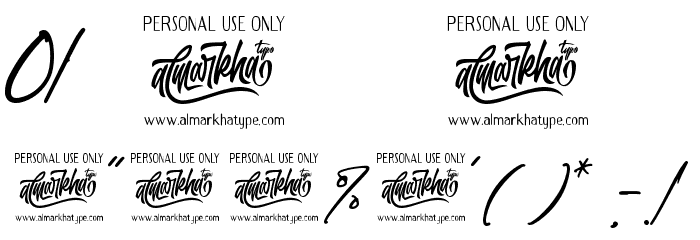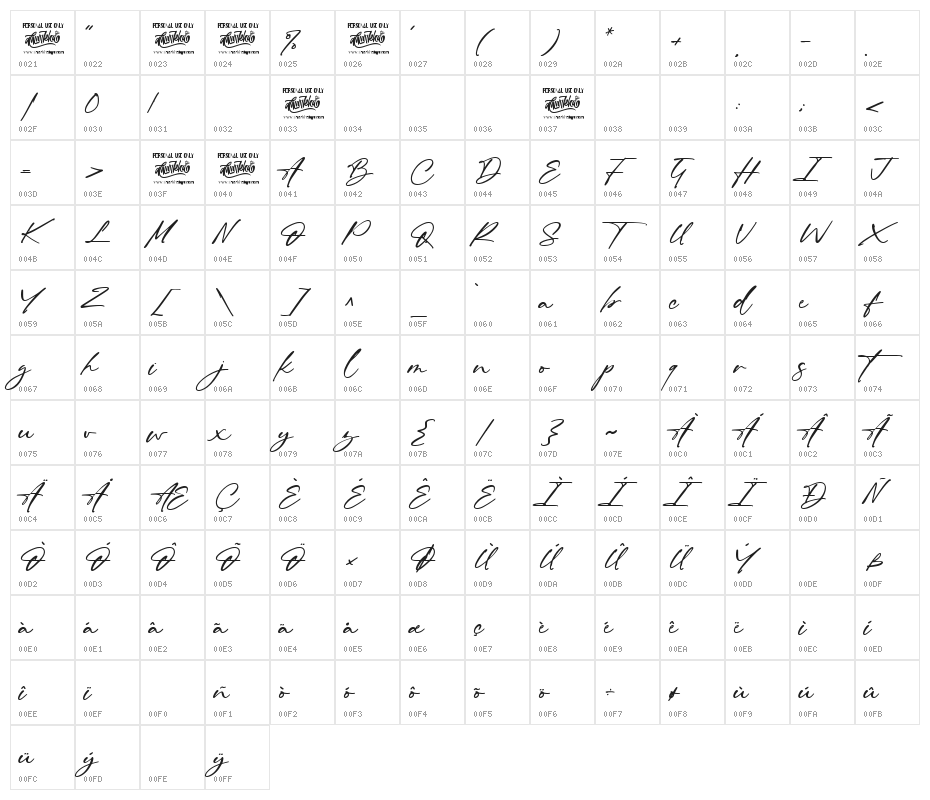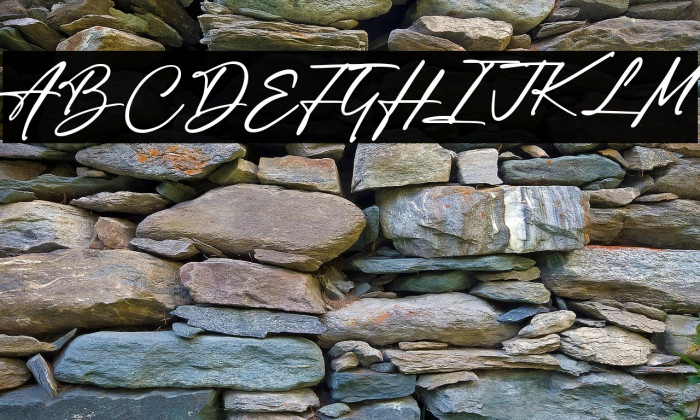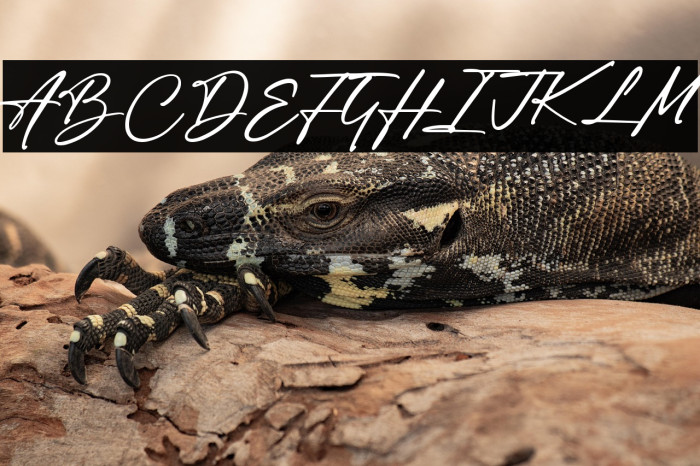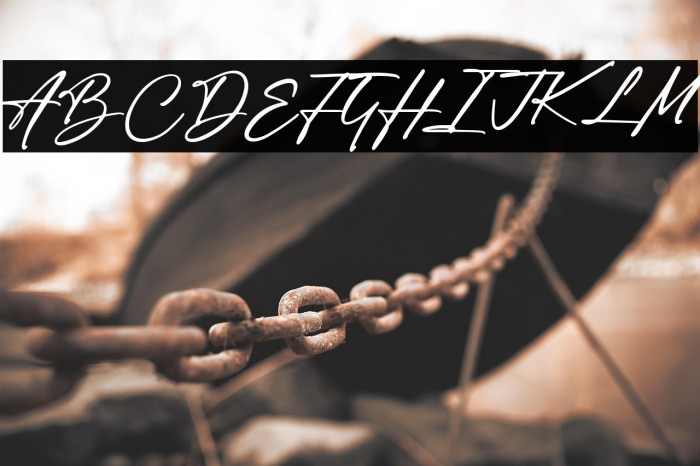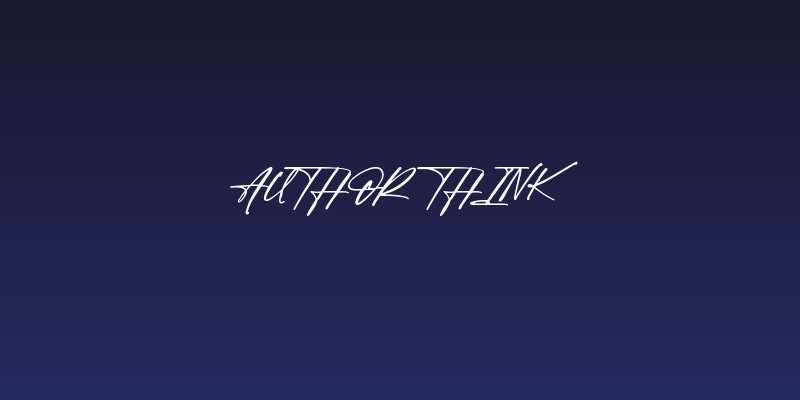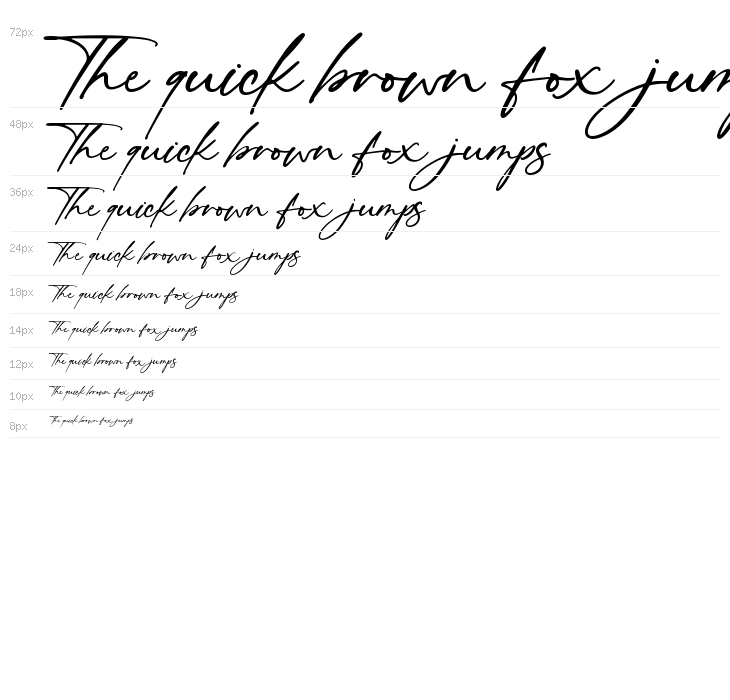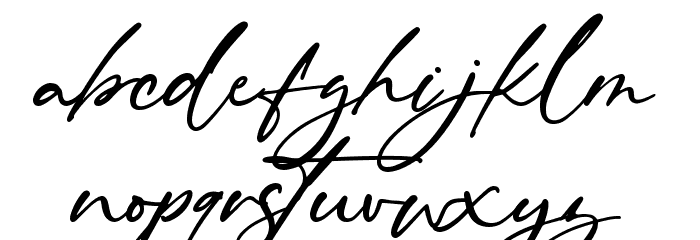
Author Think Font
Author Think Description
This font exhibits a dynamic and fluid script style, characterized by its elegant and flowing letterforms. The uppercase letters are bold and slightly slanted, giving a sense of movement and grace. The lowercase letters maintain a consistent rhythm, with smooth connections between characters, enhancing the cursive aesthetic. The numerals and special characters complement the overall design, maintaining the same handwritten feel. This font is perfect for projects that require a personal touch, such as invitations, greeting cards, or branding materials. Its artistic flair makes it suitable for creative and expressive designs.